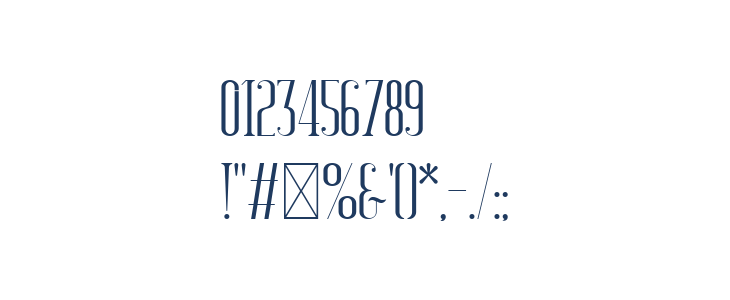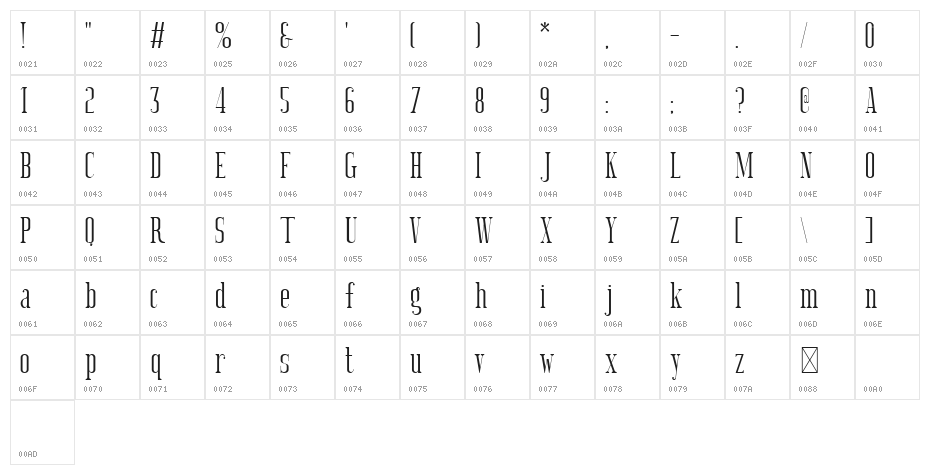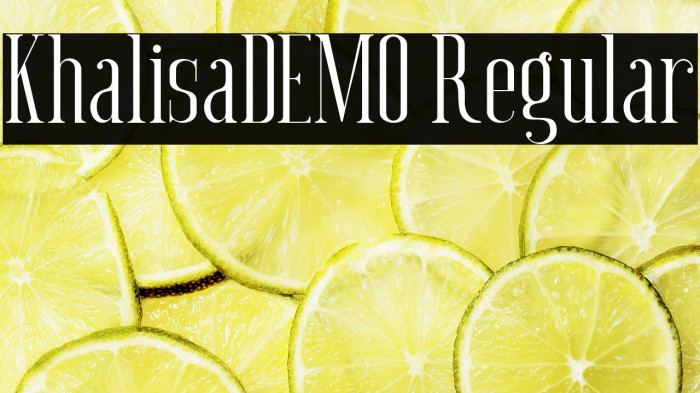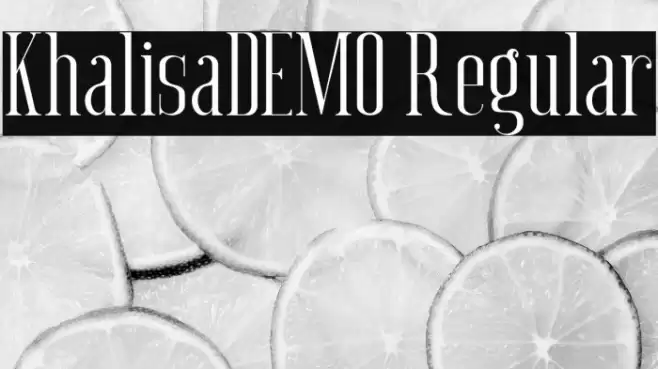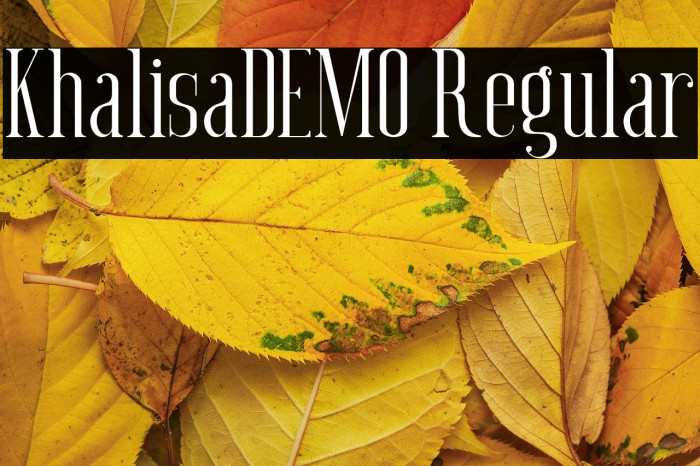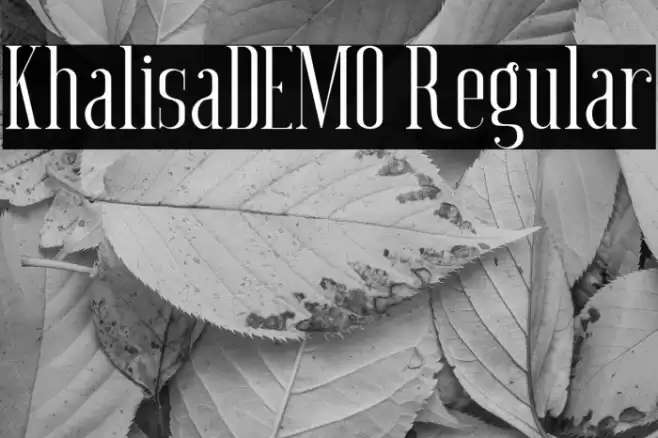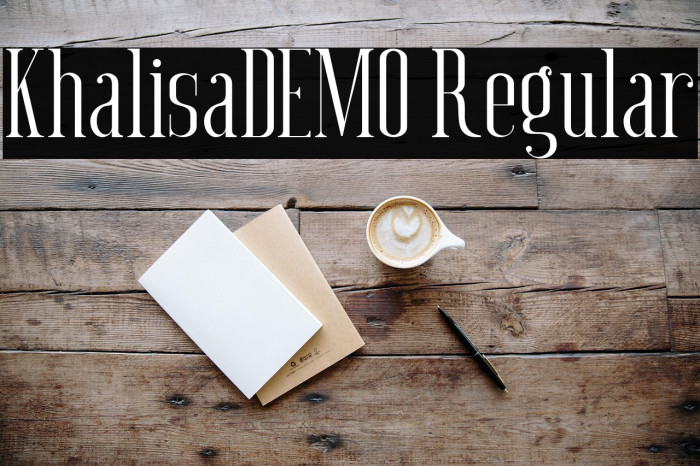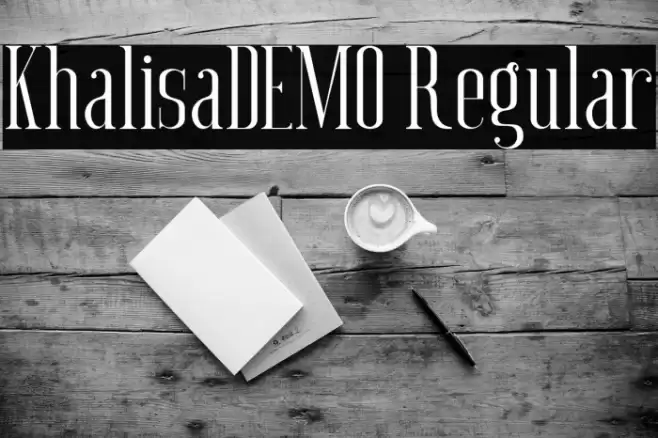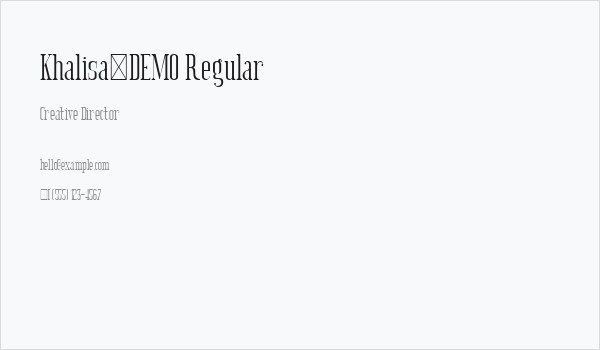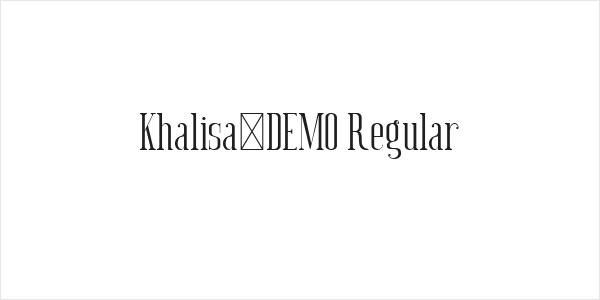
Khalisa_DEMO Regular Font
Khalisa_DEMO Regular Description
This font features a tall, elegant design with a modern twist, characterized by its thin, elongated letterforms and high contrast between thick and thin strokes. The uppercase letters are particularly striking, with sharp serifs and a refined, sophisticated appearance. The lowercase letters maintain the same elegance, with a slightly more playful touch in their curves. The numerals are consistent with the overall style, offering a sleek and stylish look. Special characters are well-integrated, maintaining the font's cohesive aesthetic. This font is perfect for projects that require a touch of elegance and modernity.